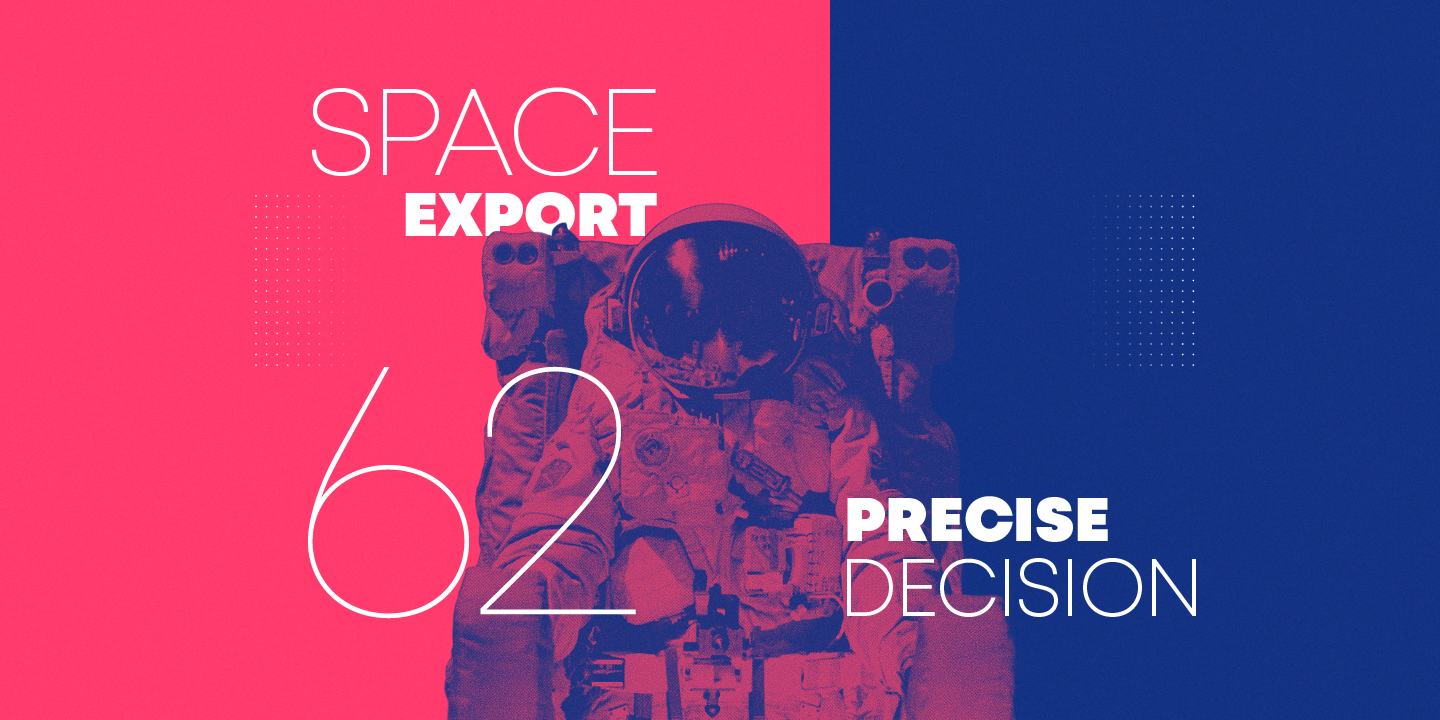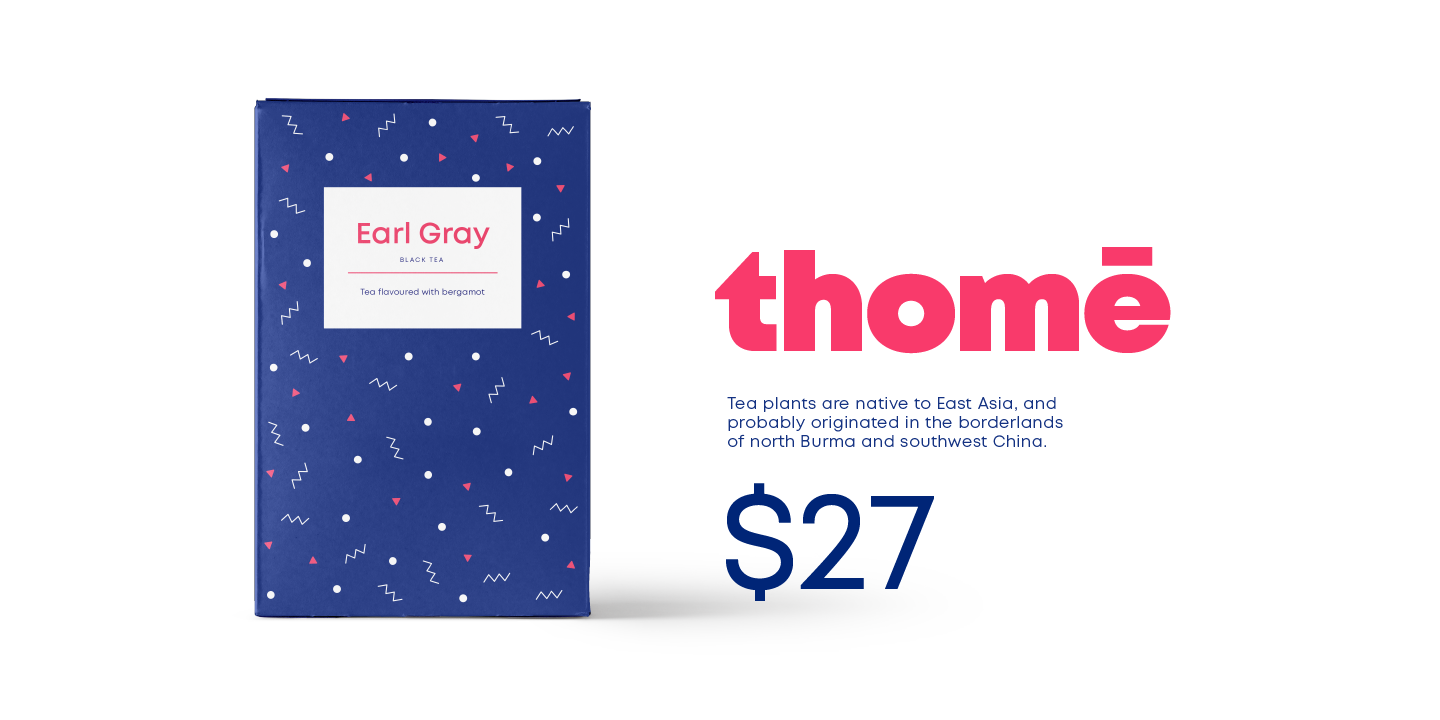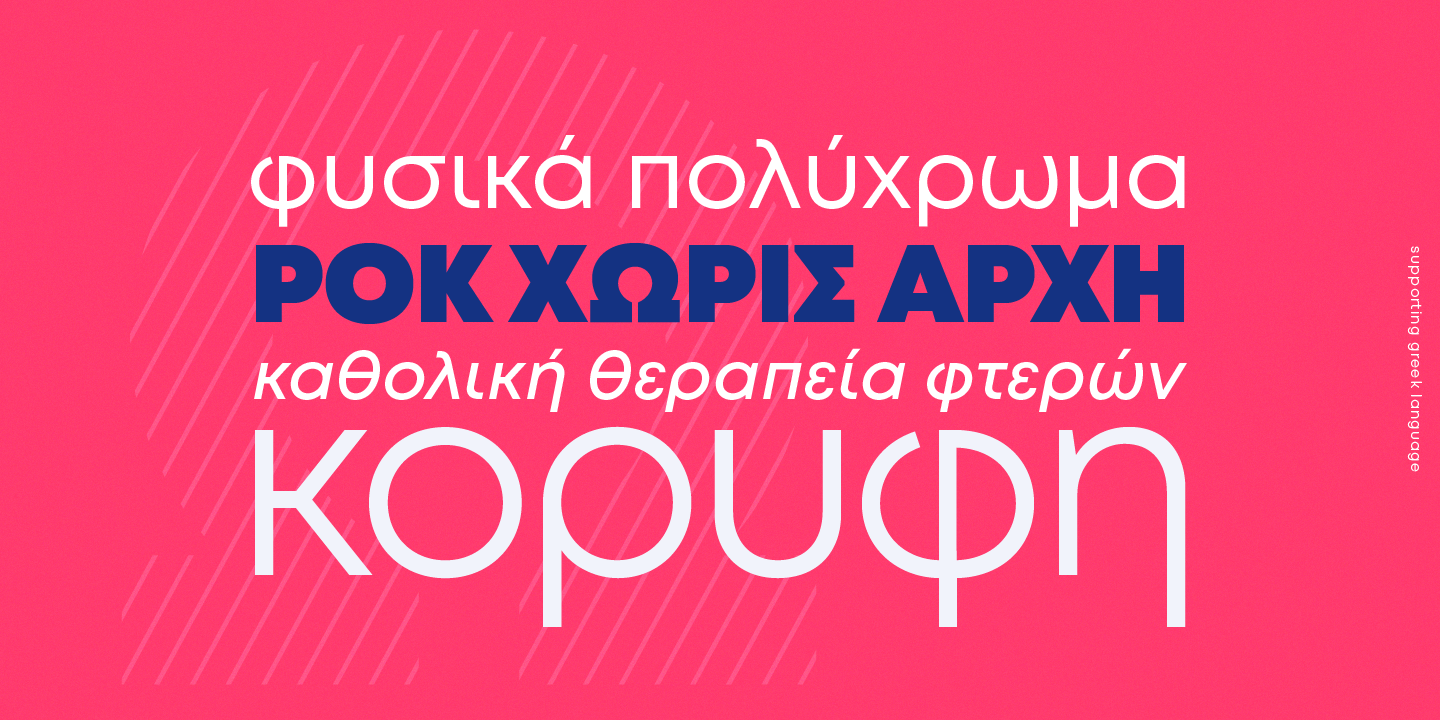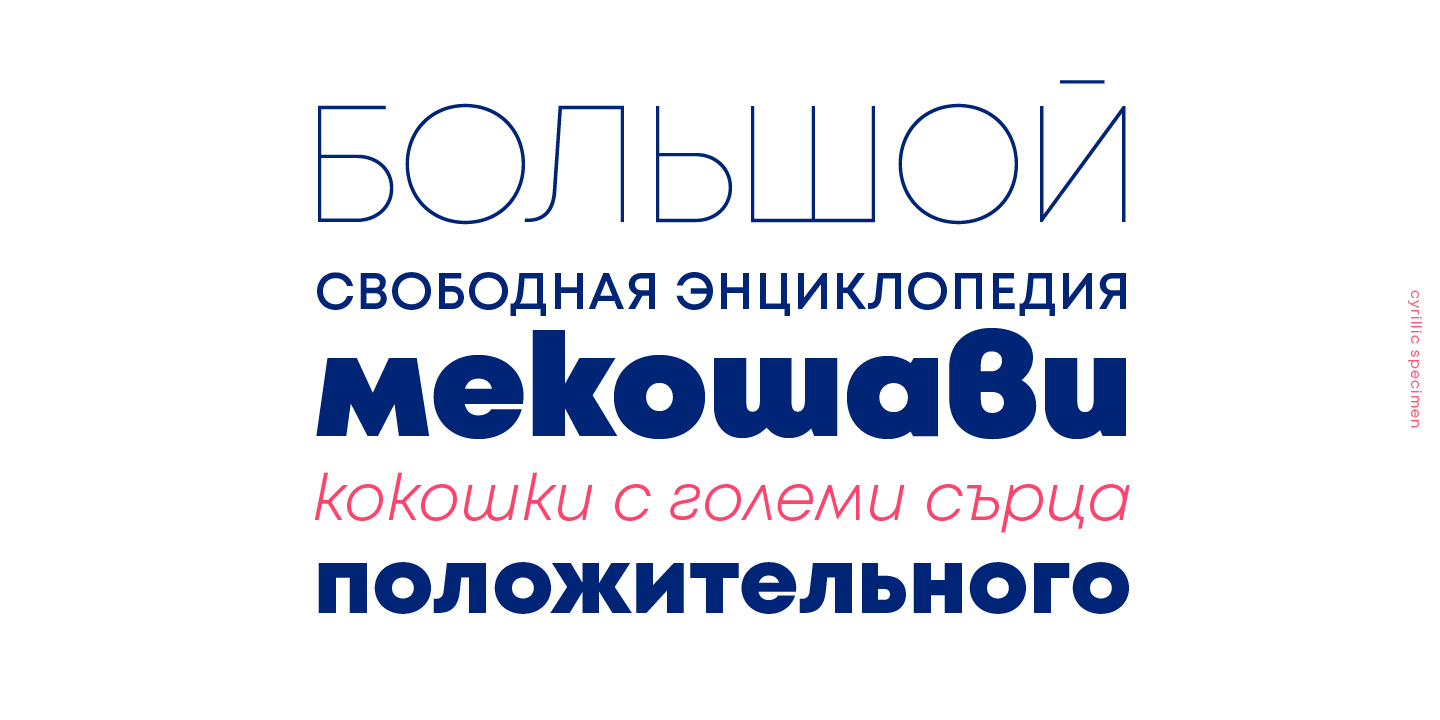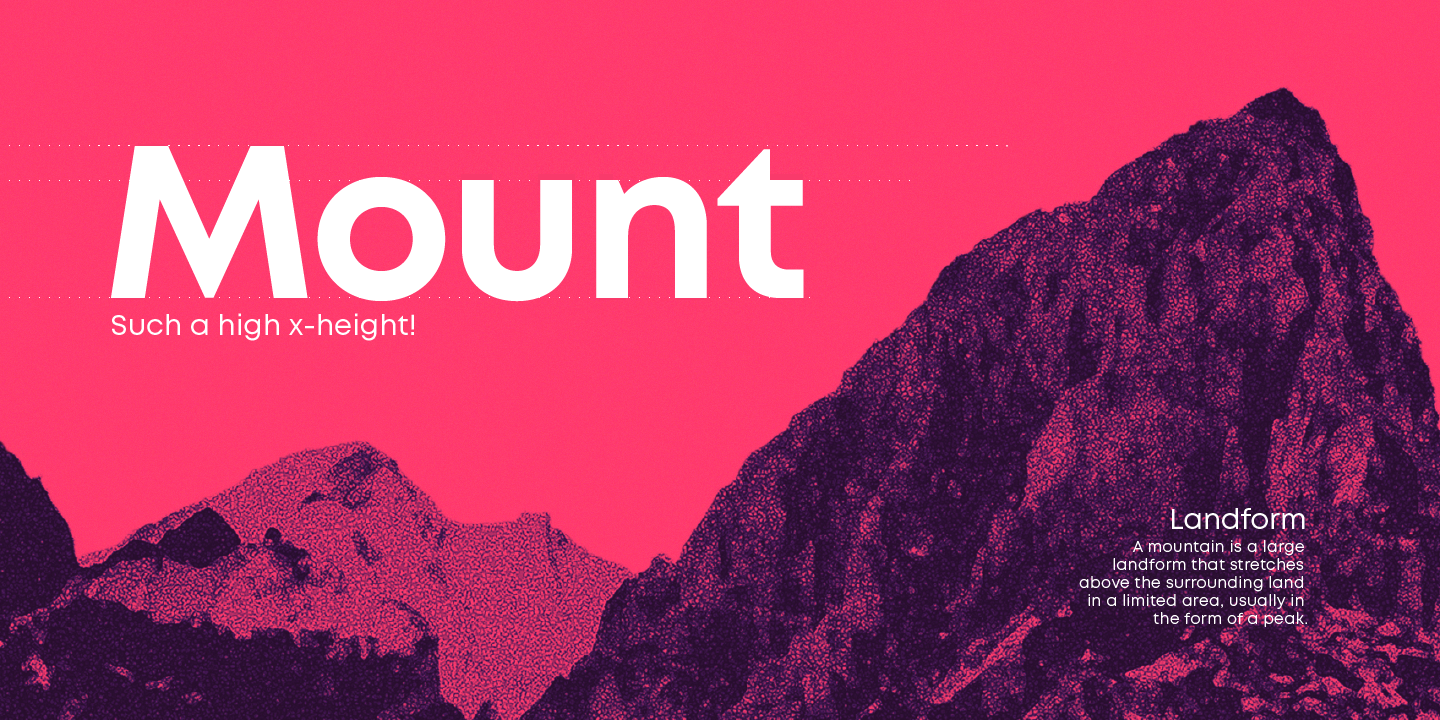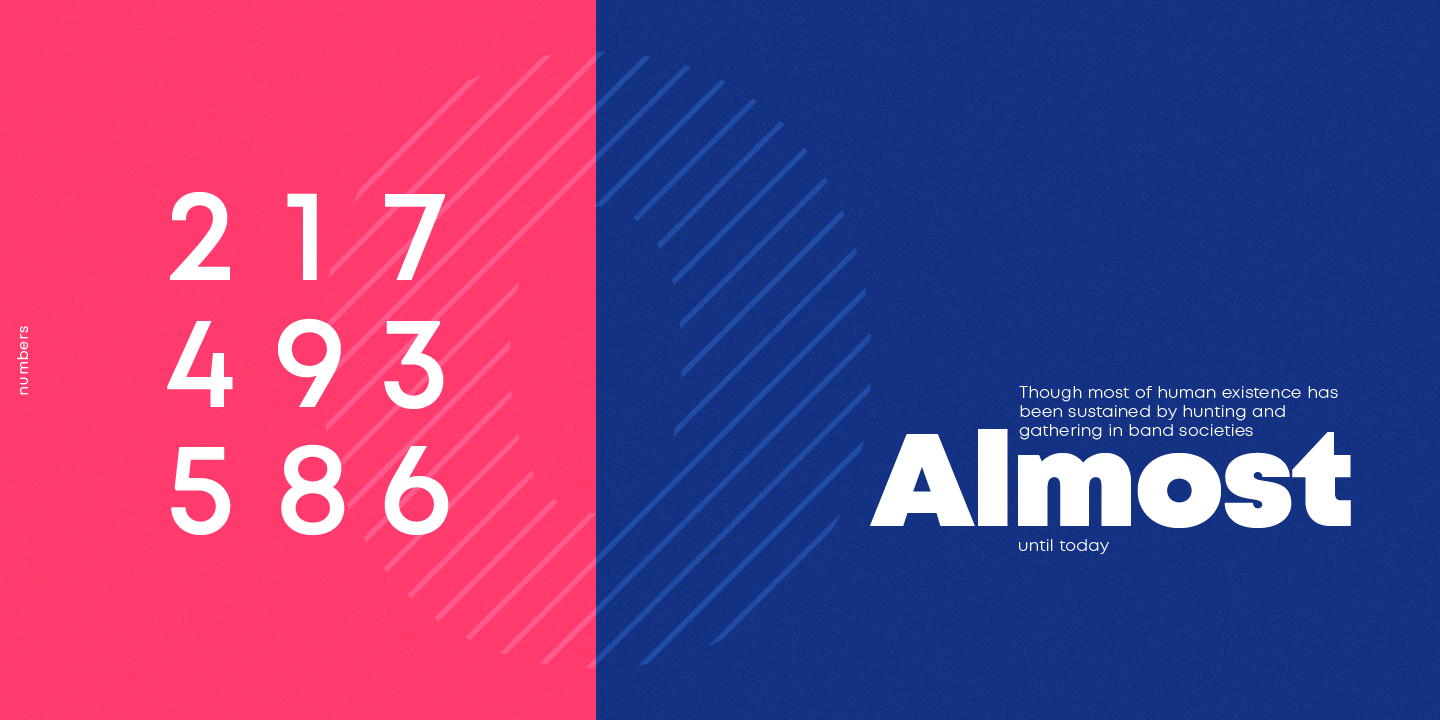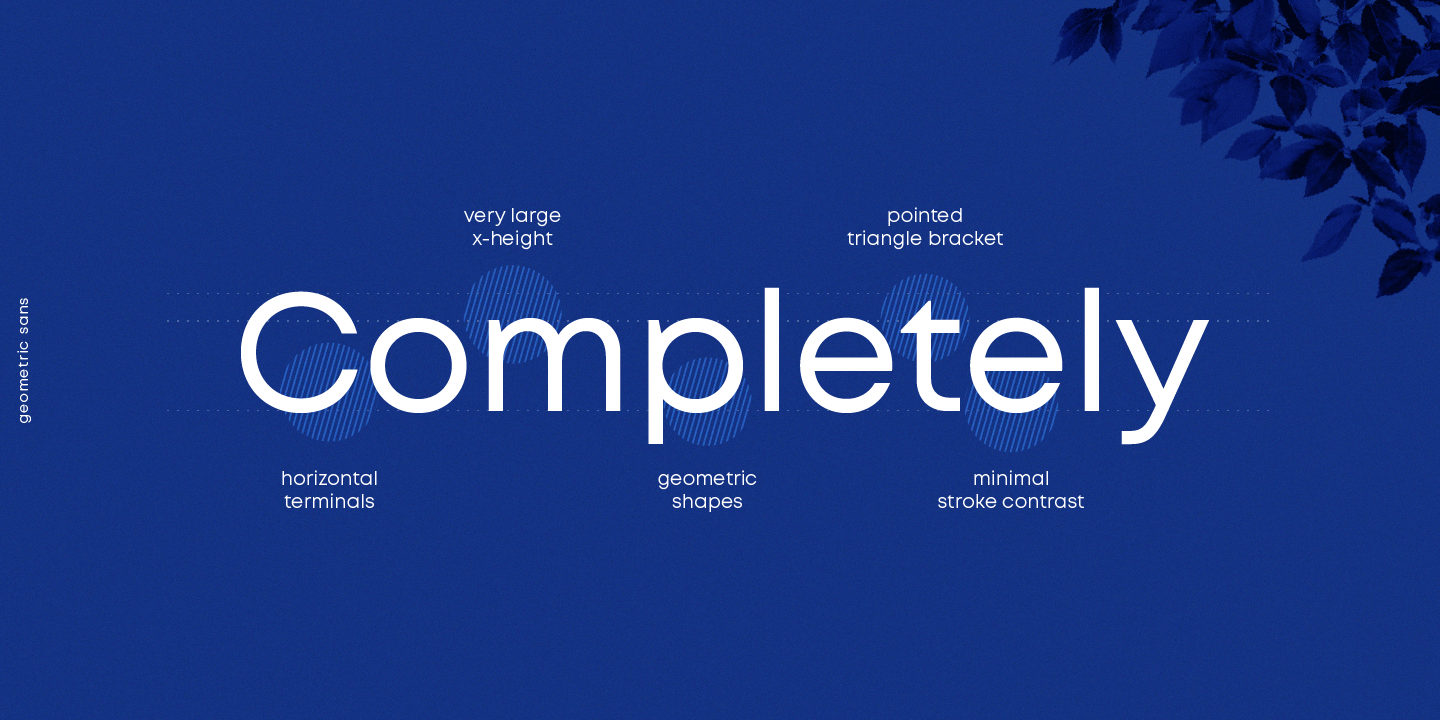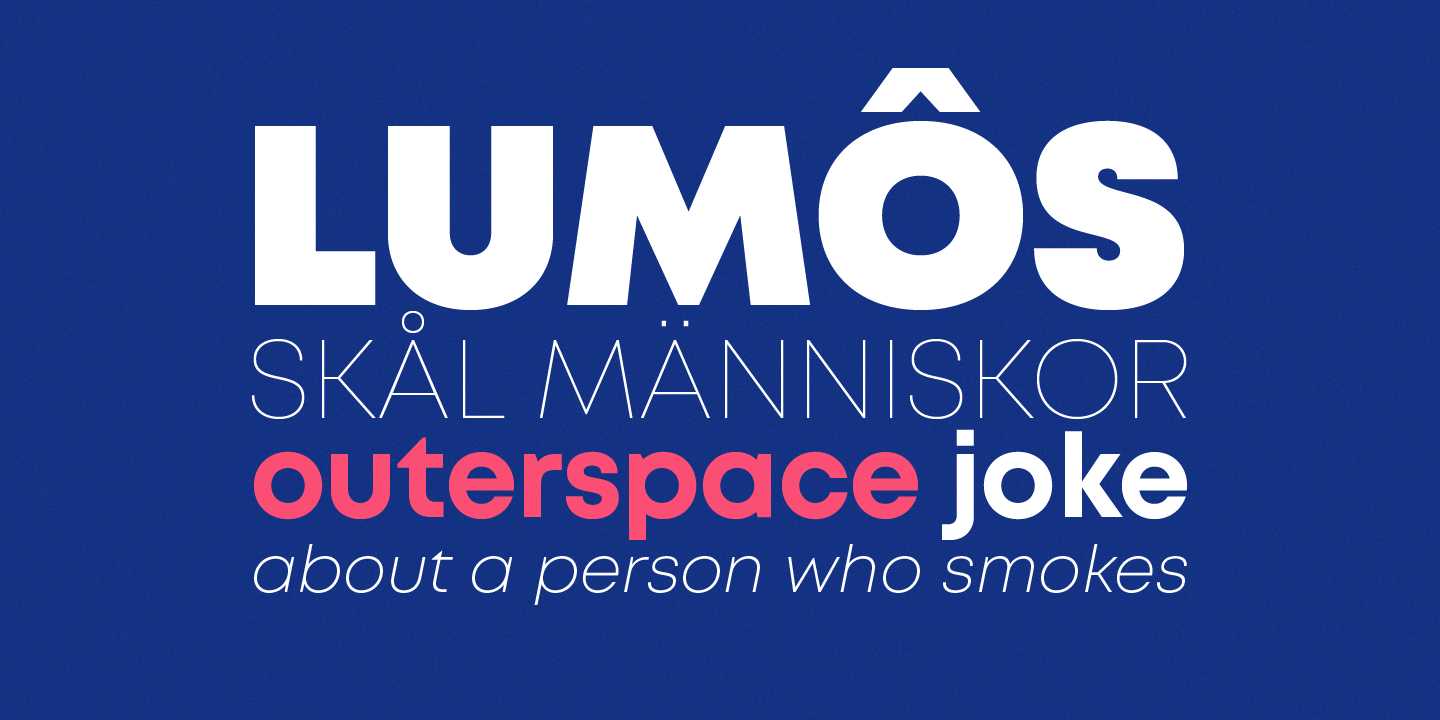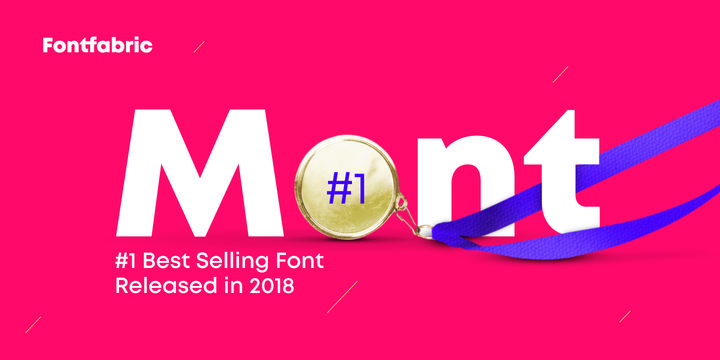
Mont Family (20 fonts)
From Fontfabric
The balanced characteristic of Mont with unique details, such as the pointed “t” and the prominent x-height makes it perfect for strong headlines and outstanding logos, but also suitable for long text.
Mont comes with a multiple range of OpenType features — including tabular figures, advanced typographic features such as ligatures, fractions, case-sensitive forms, superscripts, subscripts etc. The typeface?s versatility and merits make it easy to confront any graphic design challenge — web, print, motion graphics etc.
Up with Mont to the top and beyond!